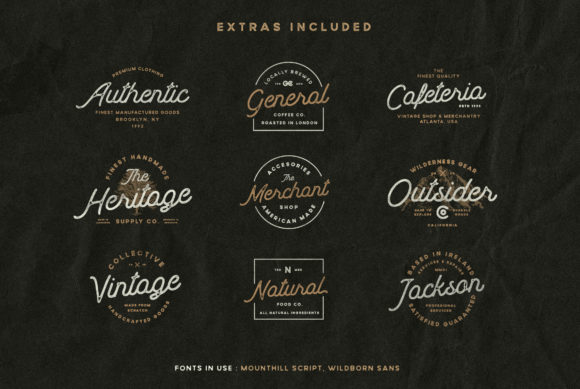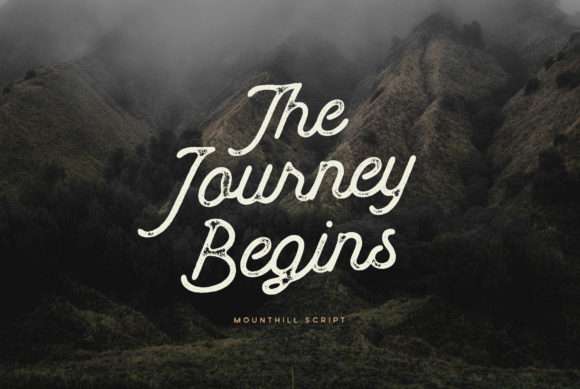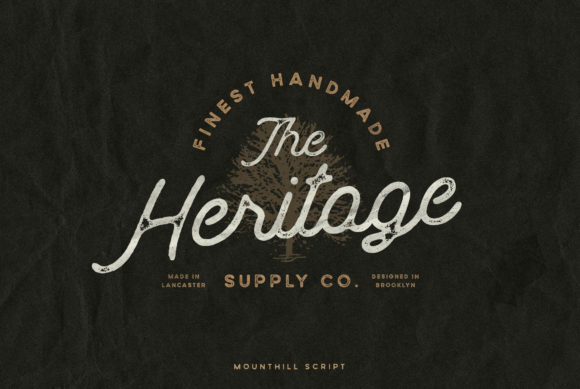
Introduction to MountHill Font
MountHill is a casual, fun handwritten font, created by using a brush pen.
Clean and a little bit quirky, this font is the perfect fit for all of your logos, branding, social media, and crafty DIY projects .
Key Features of MountHill Font